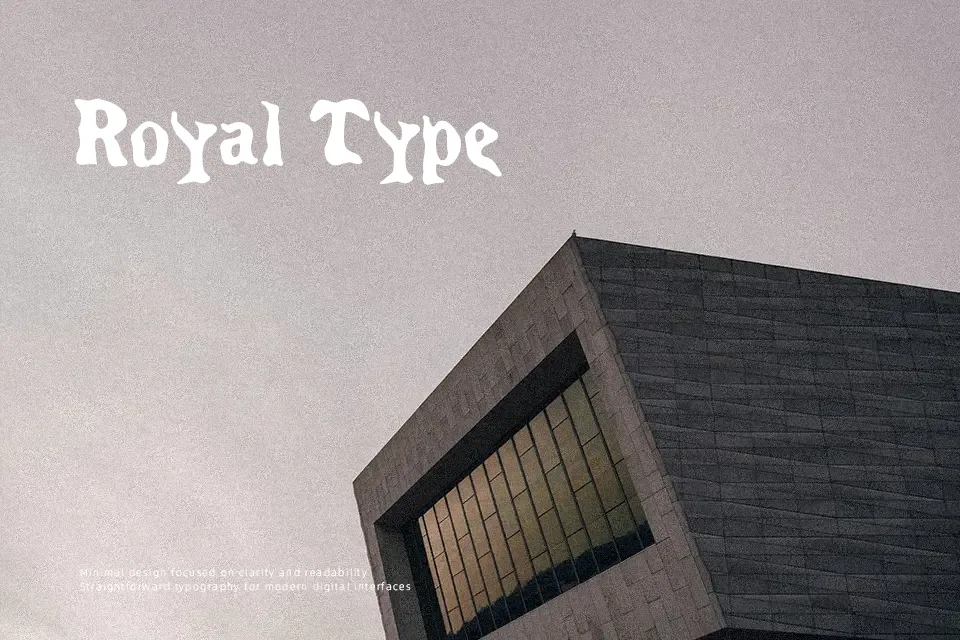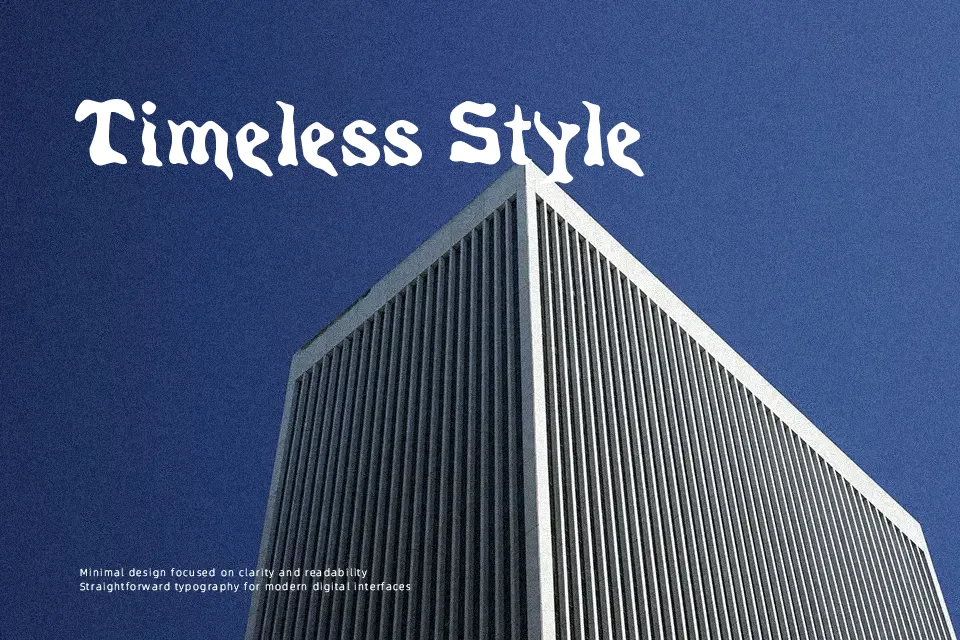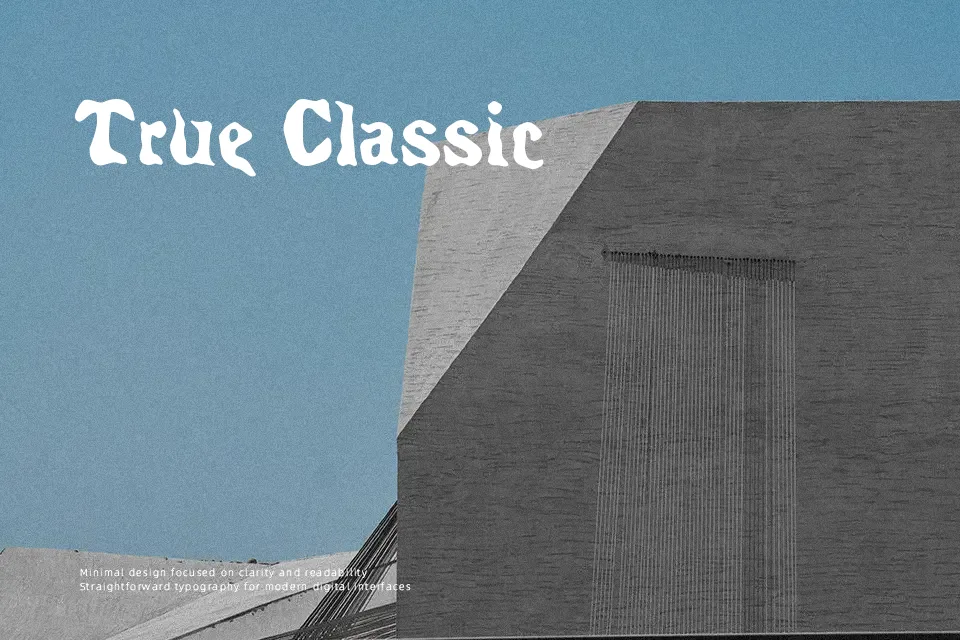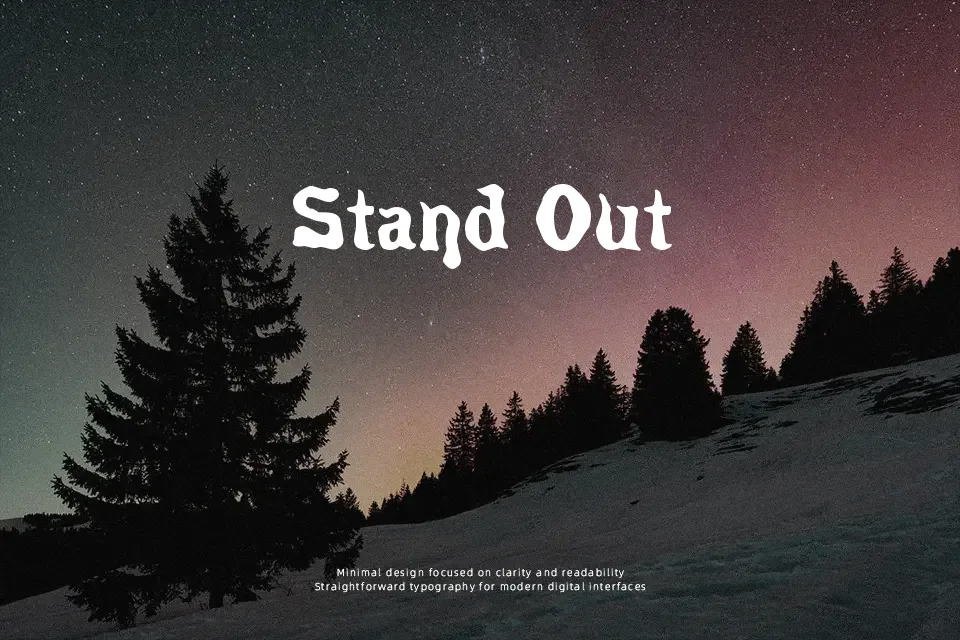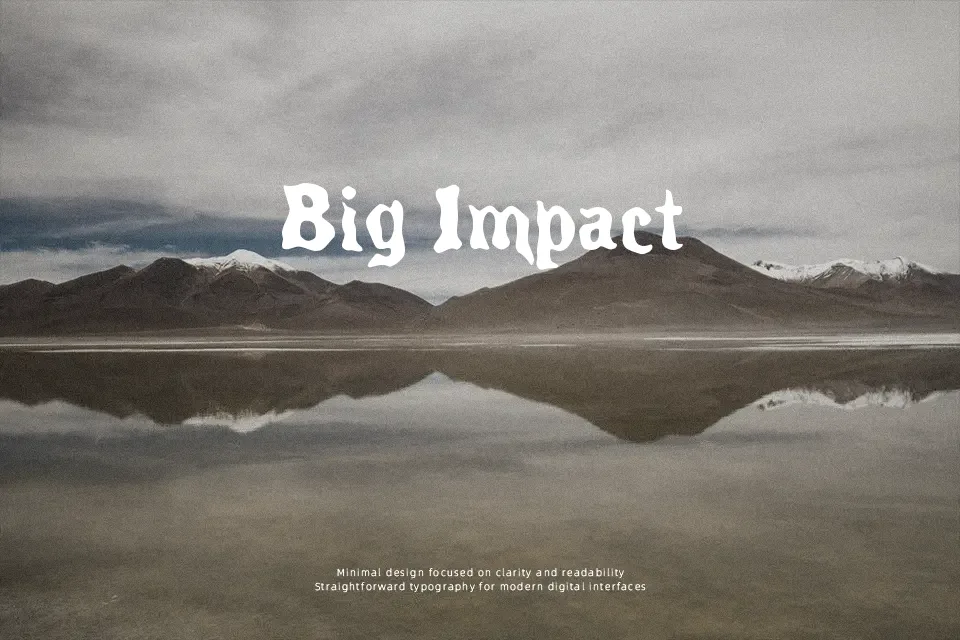
Spirits Font
Designed by Richard William Mueller
Spirits Font showcases fluid, ghost-like letterforms defined by wavy contours, inconsistent stroke widths, and dramatic organic curves. The eccentric character shapes produce an unsettling visual rhythm, making the design particularly effective for haunted attraction signage, dark fantasy title cards, and seasonal event banners. Moderate spacing keeps individual glyphs distinguishable in large headline compositions, though the distorted silhouettes quickly lose structural definition at smaller scales. While the heavy, expressive shapes command attention in thematic display layouts, the high decorative complexity reduces overall reading comfort. Consequently, the typeface remains unsuited for continuous body text, serving best as a focused headline solution.
Best For: horror movie title cards, Halloween event posters, haunted attraction signage, dark fantasy book covers
Not Ideal For: continuous body text, mobile interface labels, corporate annual reports, dense technical manuals
Perfect for film, gaming, and halloween, with a dark and decorative style.